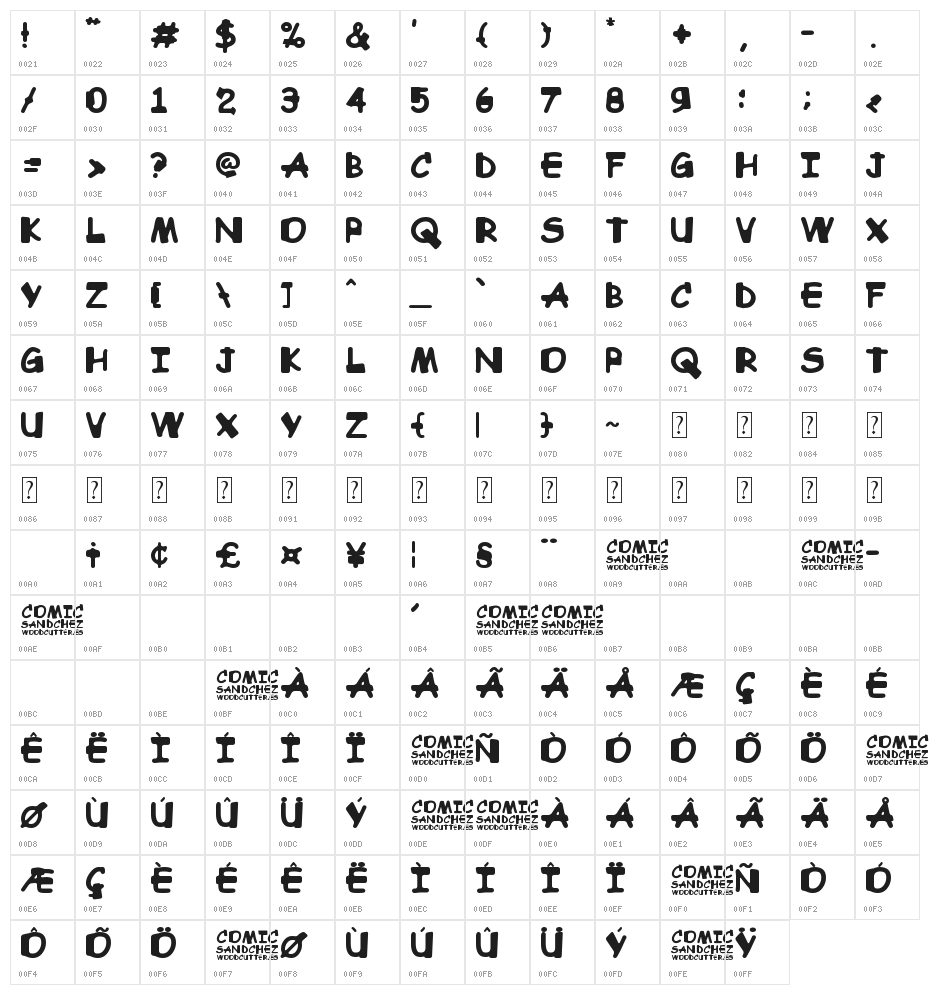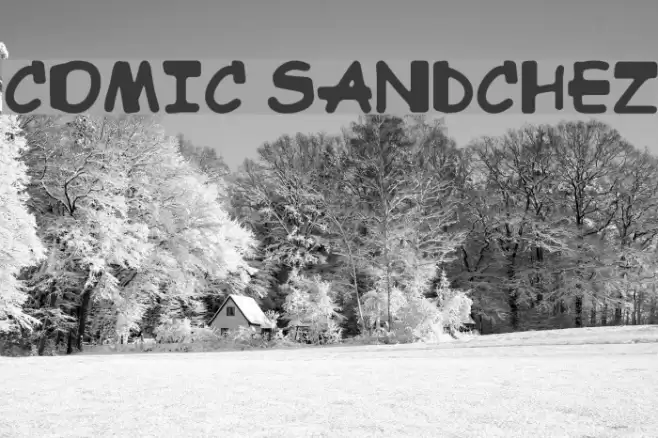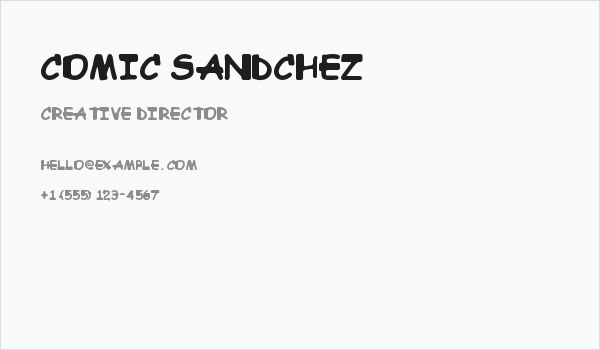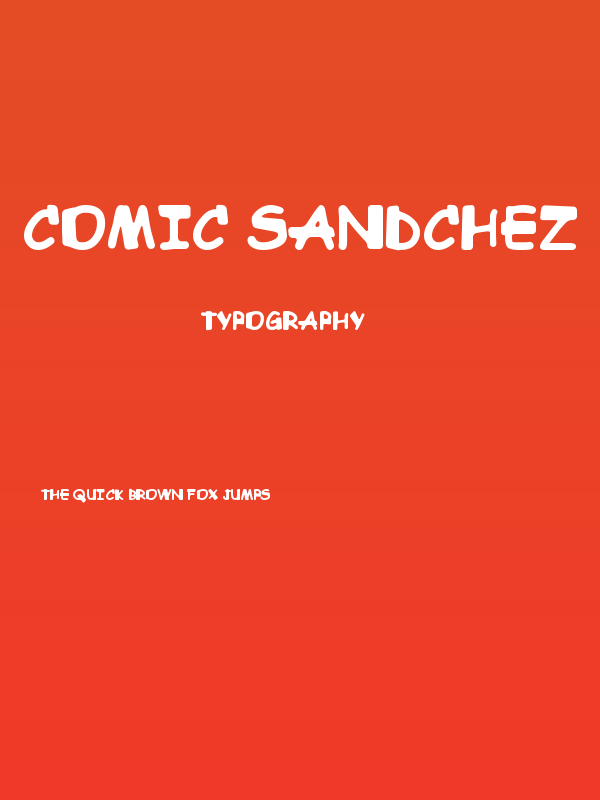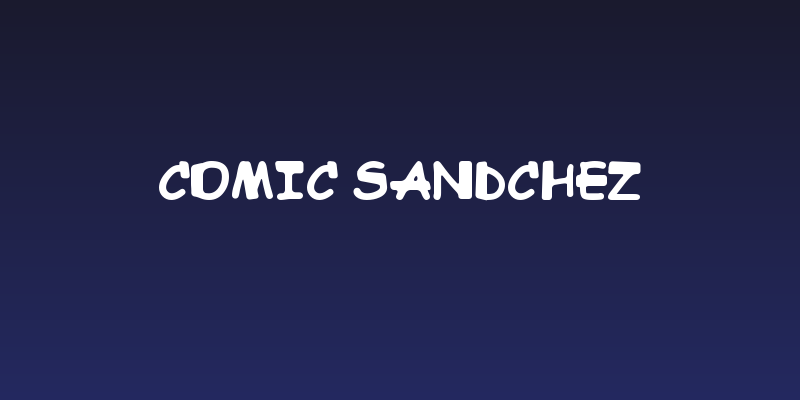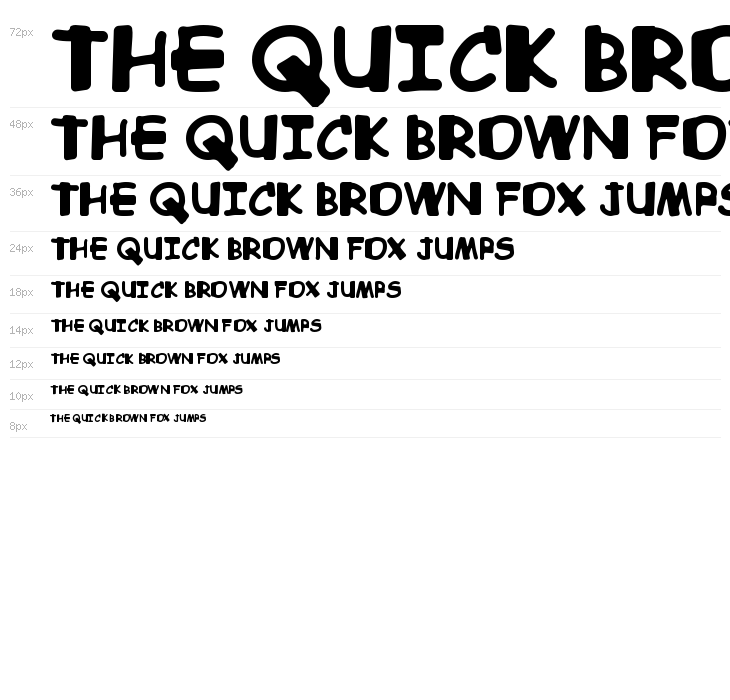
Comic Sandchez Font
Comic Sandchez Description
This playful and bold font features a cartoonish style with exaggerated, rounded edges and a hand-drawn appearance. Each character is uniquely crafted with a whimsical touch, making it ideal for informal and fun designs. The uppercase and lowercase letters maintain a consistent thickness, while the numbers and special characters follow the same playful theme. The font's overall look is reminiscent of comic book lettering, with a slightly irregular baseline that adds to its charm. Its bold presence ensures readability while maintaining a lighthearted feel.
| Overall Style | Playful, Cartoonish |
| Proposed Projects | Ideal for comic books, children's books, playful branding, and informal posters. |